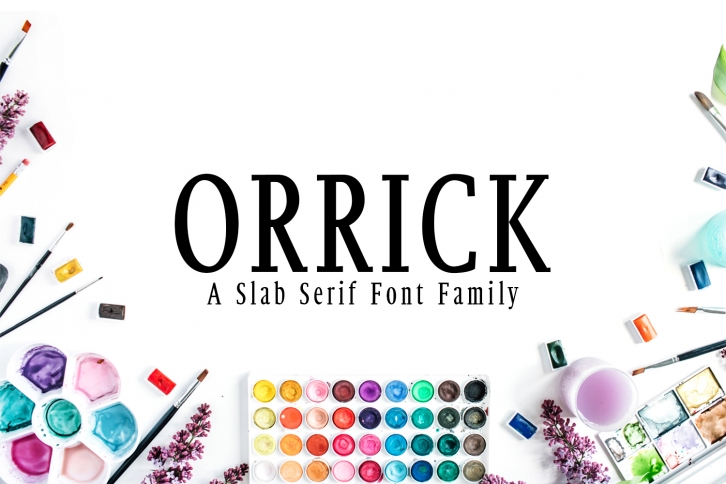
Orrick Slab Serif Family is a beautiful font that was designed by Creativetacos. It's a great choice for designers and creatives who need such a font. It was released on July 15, 2017 and the file size is 10.1 MB. Orrick Slab Serif Family may give a more youthful, expressive and casual look to your project. It is a very beautiful, refined, elegant, and high-quality font.